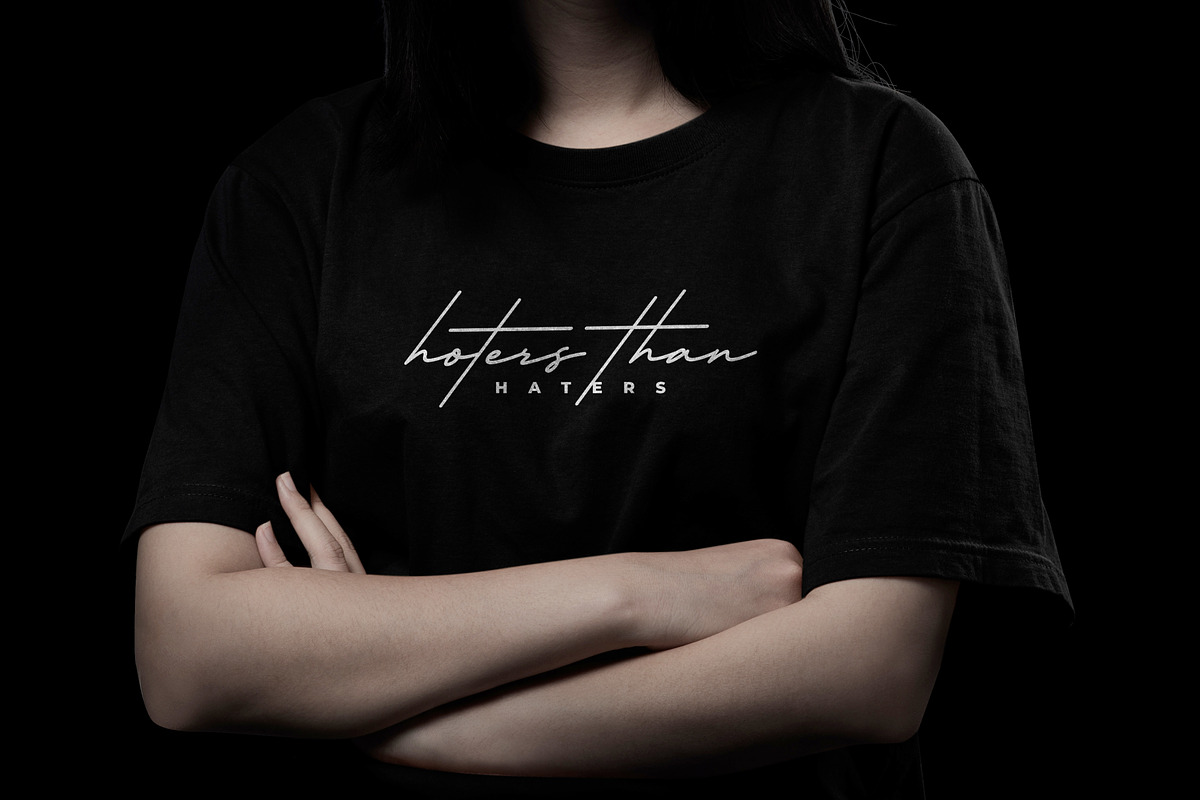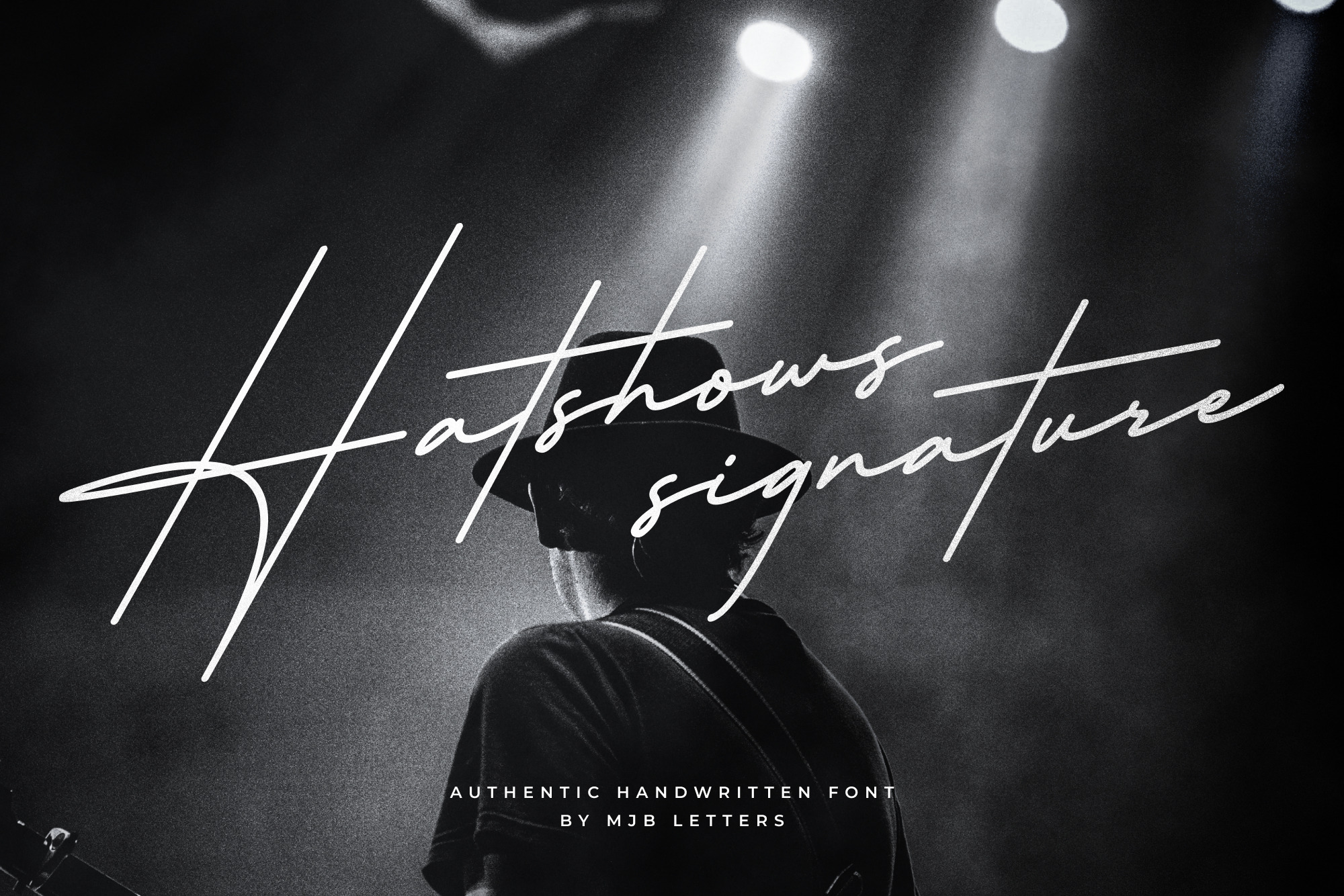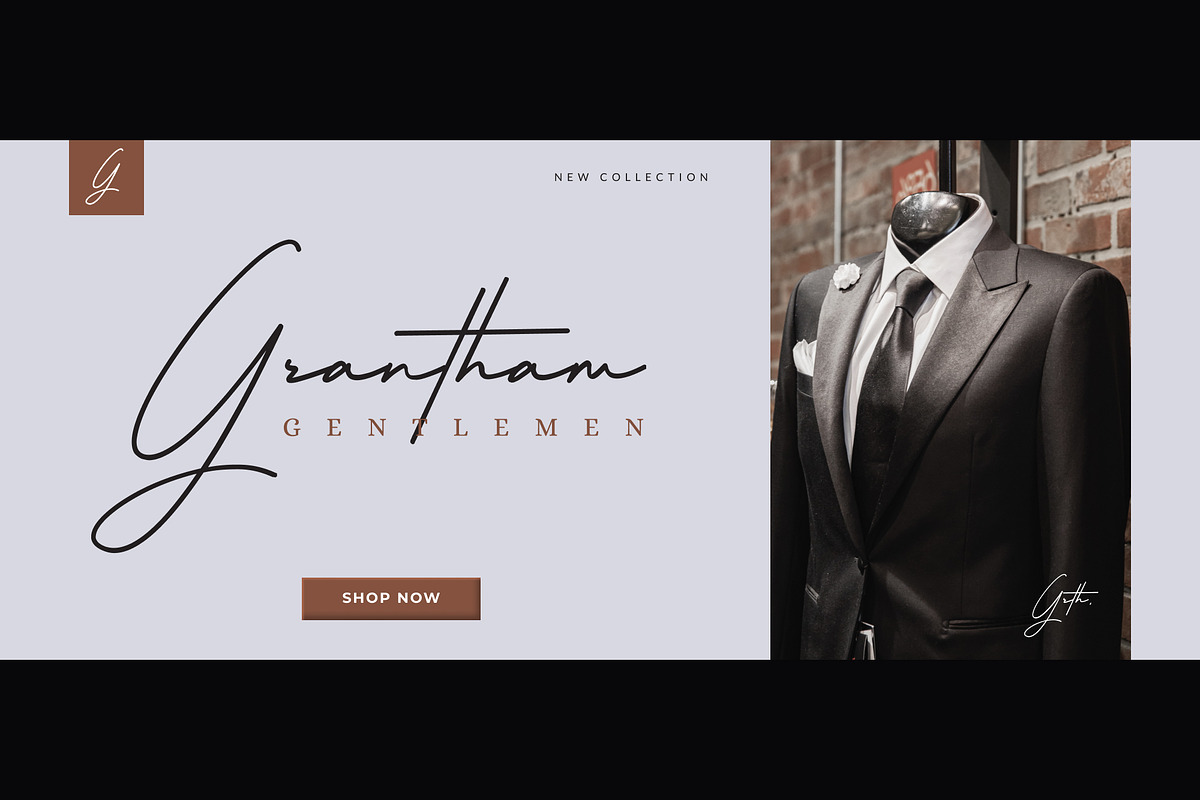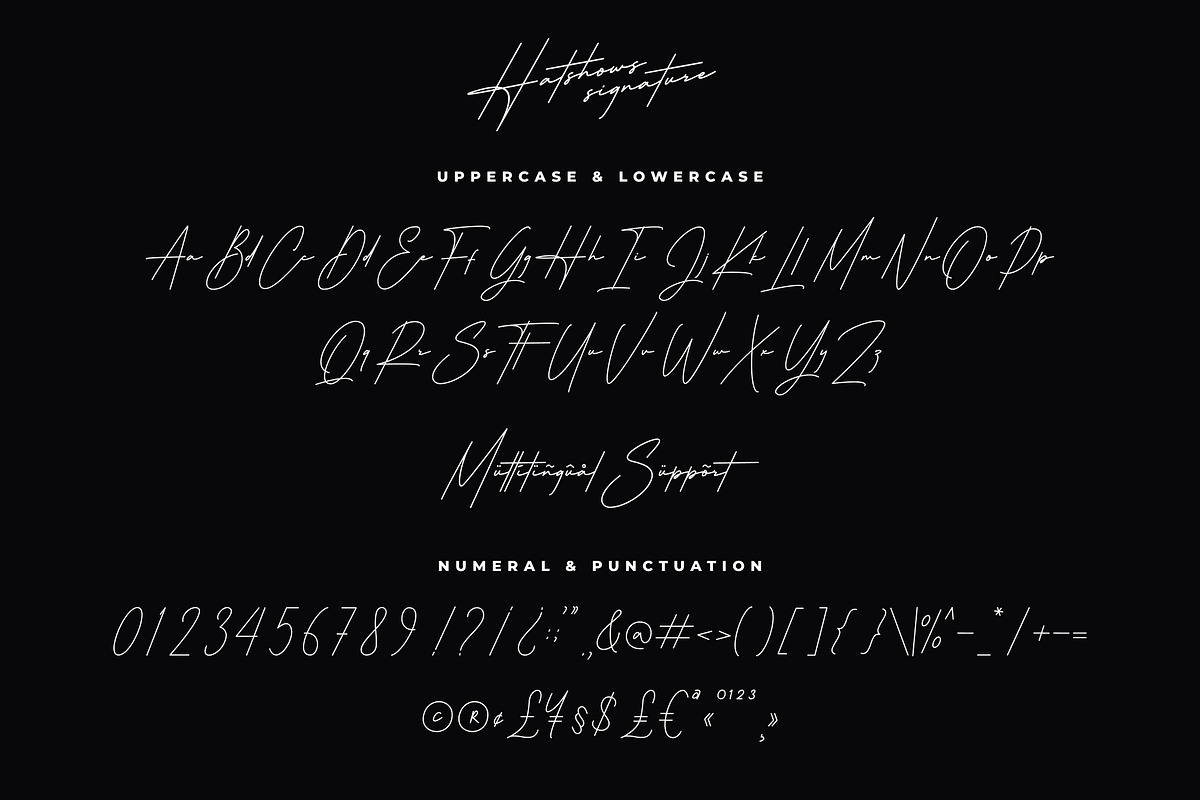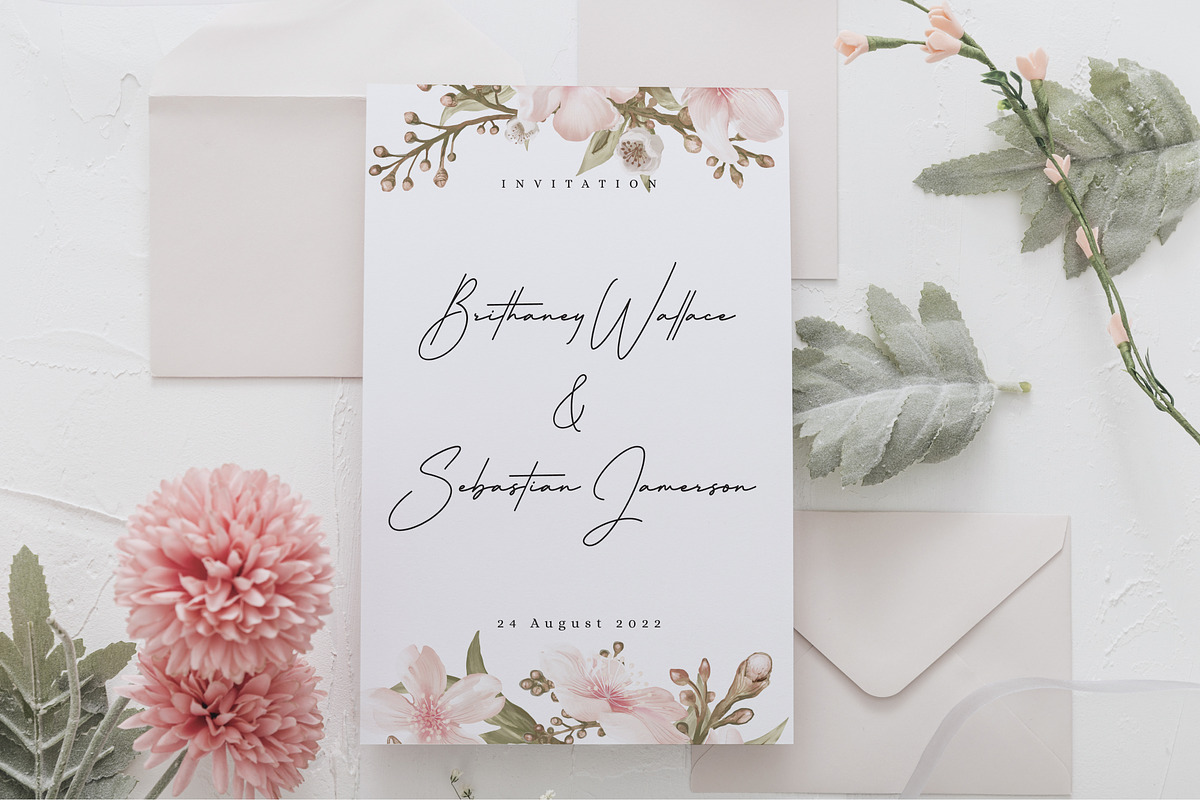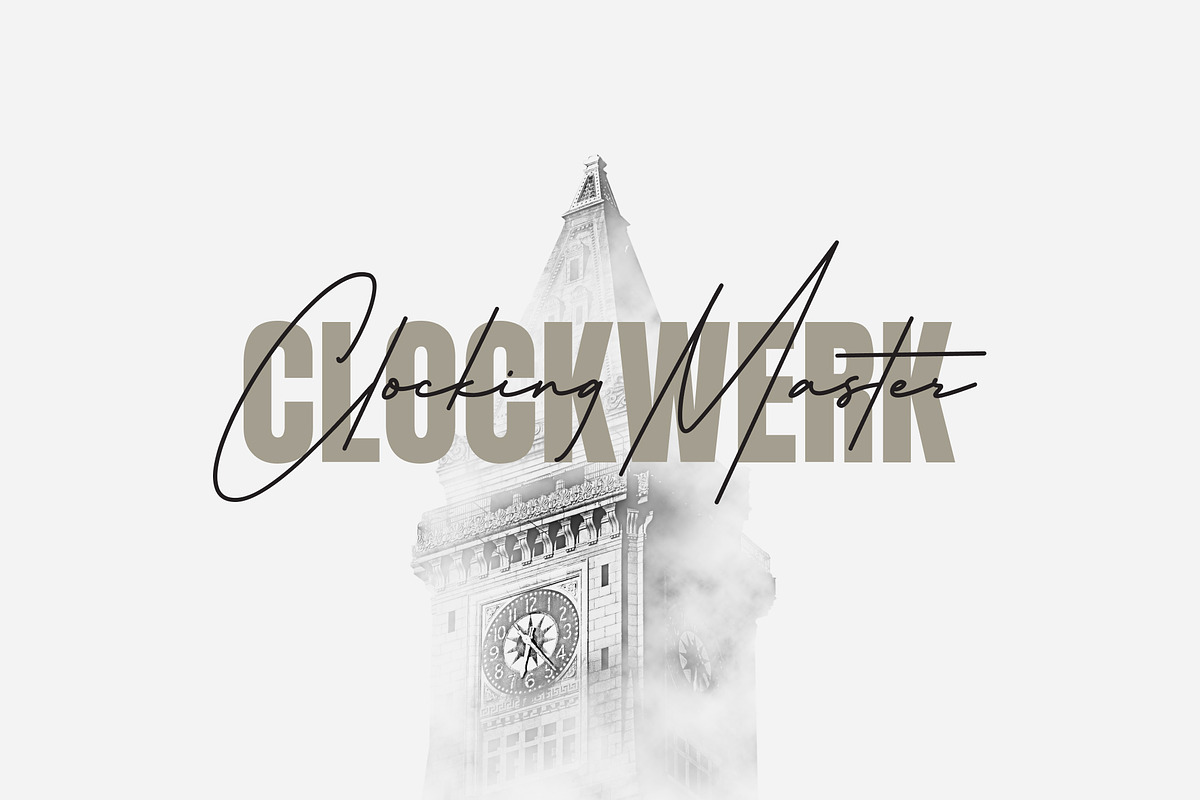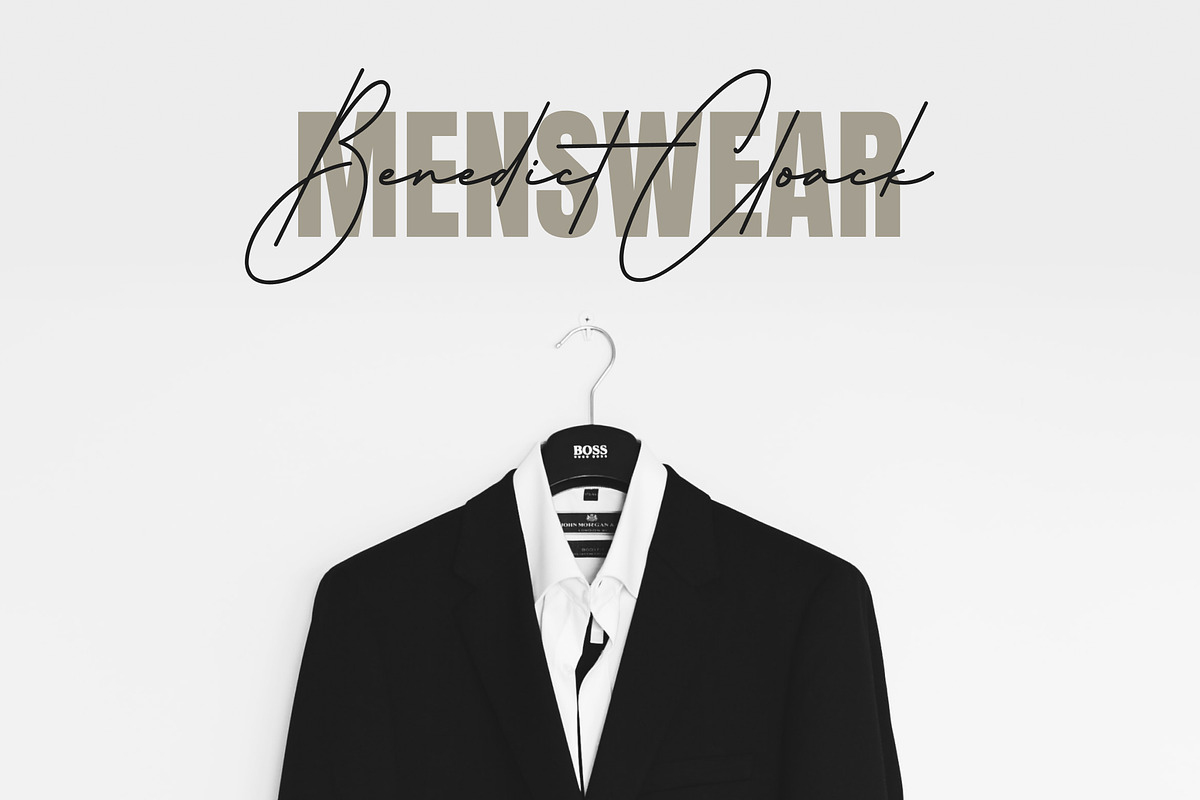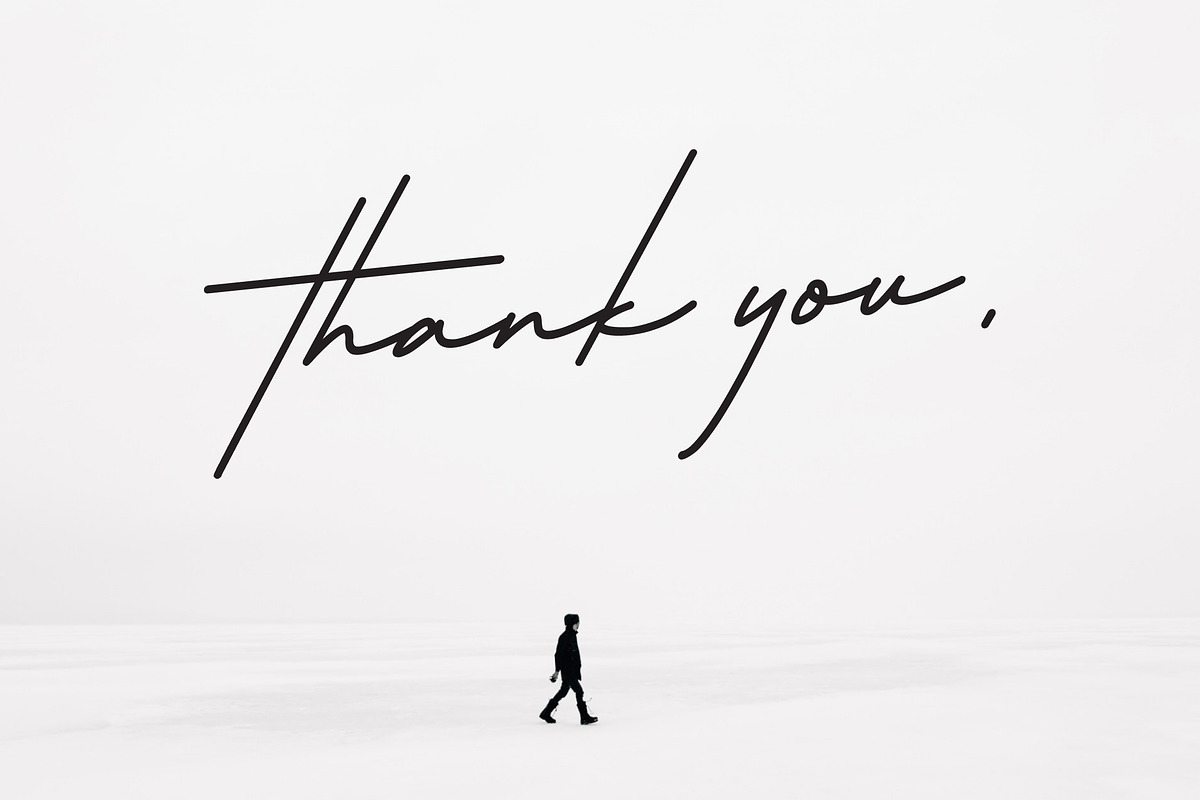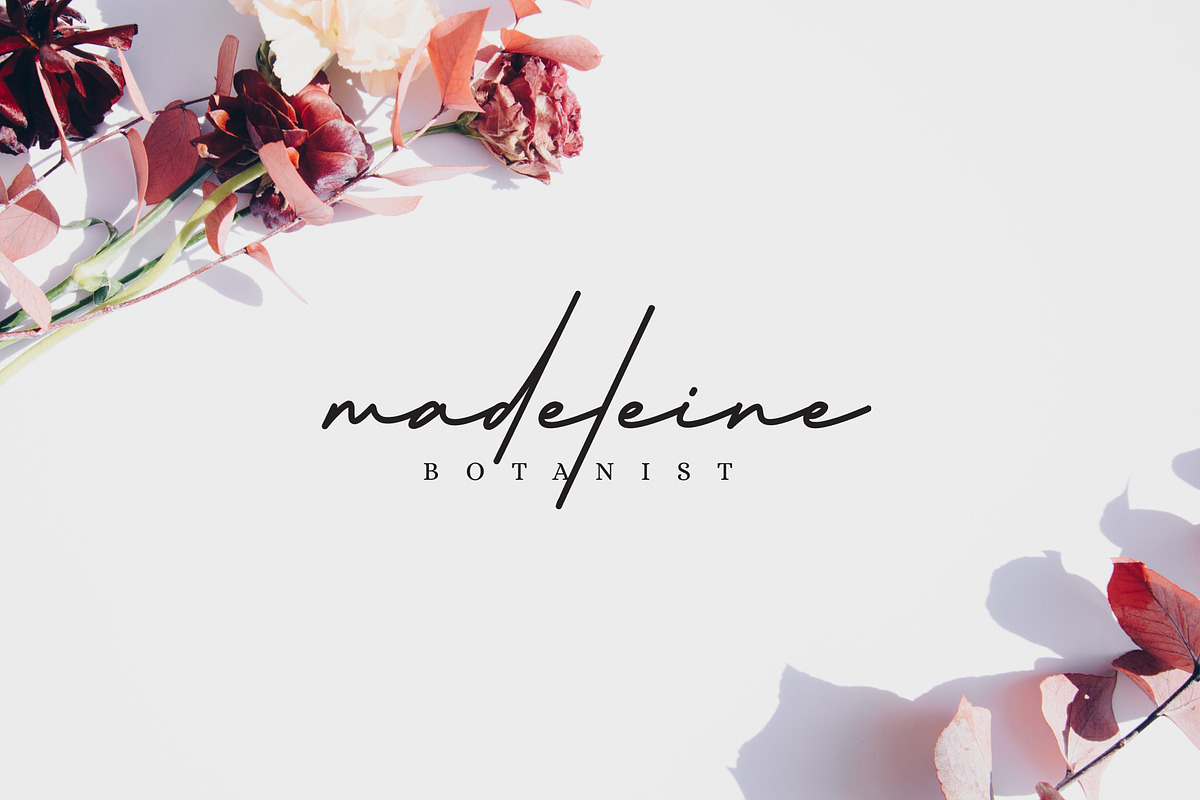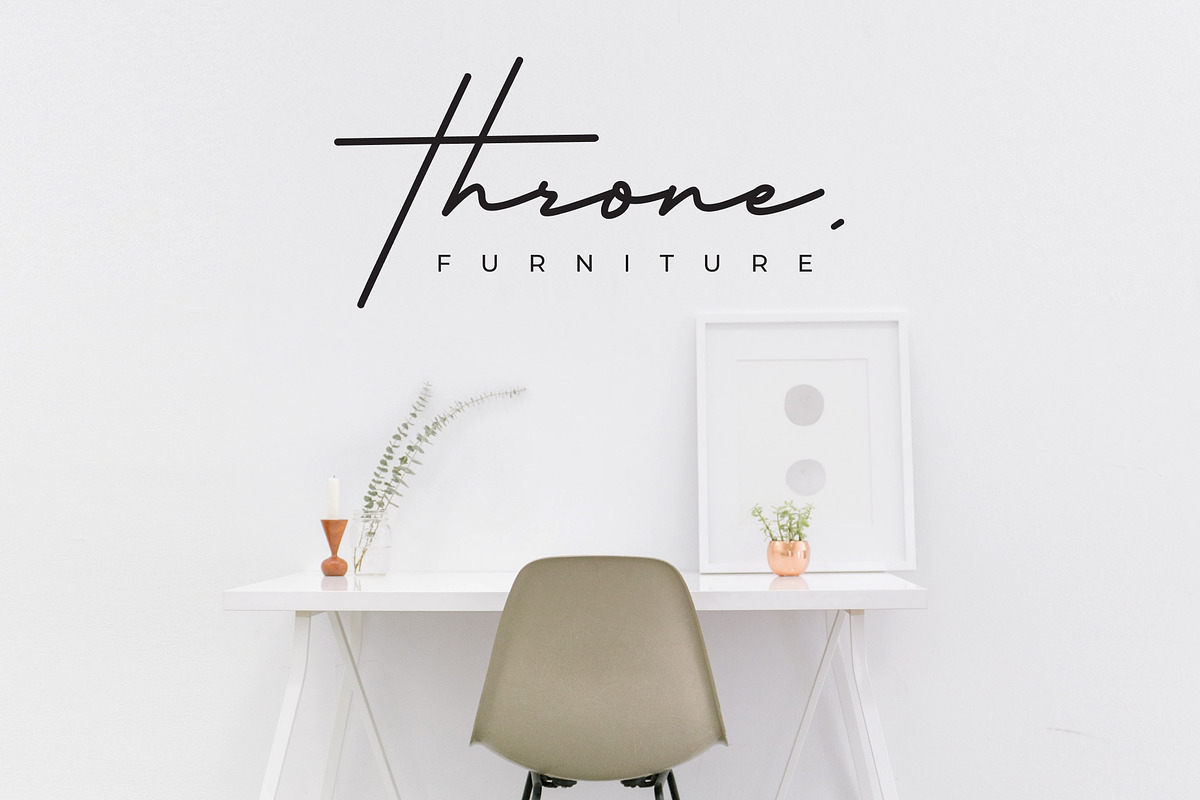
Hatshows Signature - Casual Font
Hatshows Signature is an authentic and casual handwritten font, this font has strong and firm characters that will give an elegant impression to the design.
Hatshows Signature is perfect for branding design, watermark, signature, logo design, packaging design, business card, fashion design, marketing tools, t-shirt design, wedding design and more.